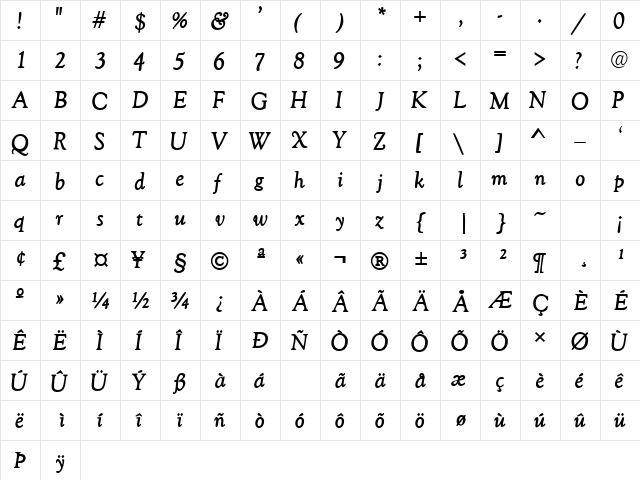
GoudyRetrospectiveSSK BoldItalic Font Preview
Design Context for GoudyRetrospectiveSSK Typeface
GoudyRetrospectiveSSK has the warm character of retro typography — evoking diners, record sleeves, and the golden age of print advertising. The dynamic lean of this cut emphasises speed and emphasis in any layout. The heavy weight commands attention and anchors typographic hierarchies.
Font Pairing: Combine GoudyRetrospectiveSSK with a simple slab or neutral sans — period-accurate companions reinforce the vintage feel without competing for attention.
Pro Tip: Lean into GoudyRetrospectiveSSK's period character by pairing it with aged paper textures, muted colour palettes, and vintage illustration styles.